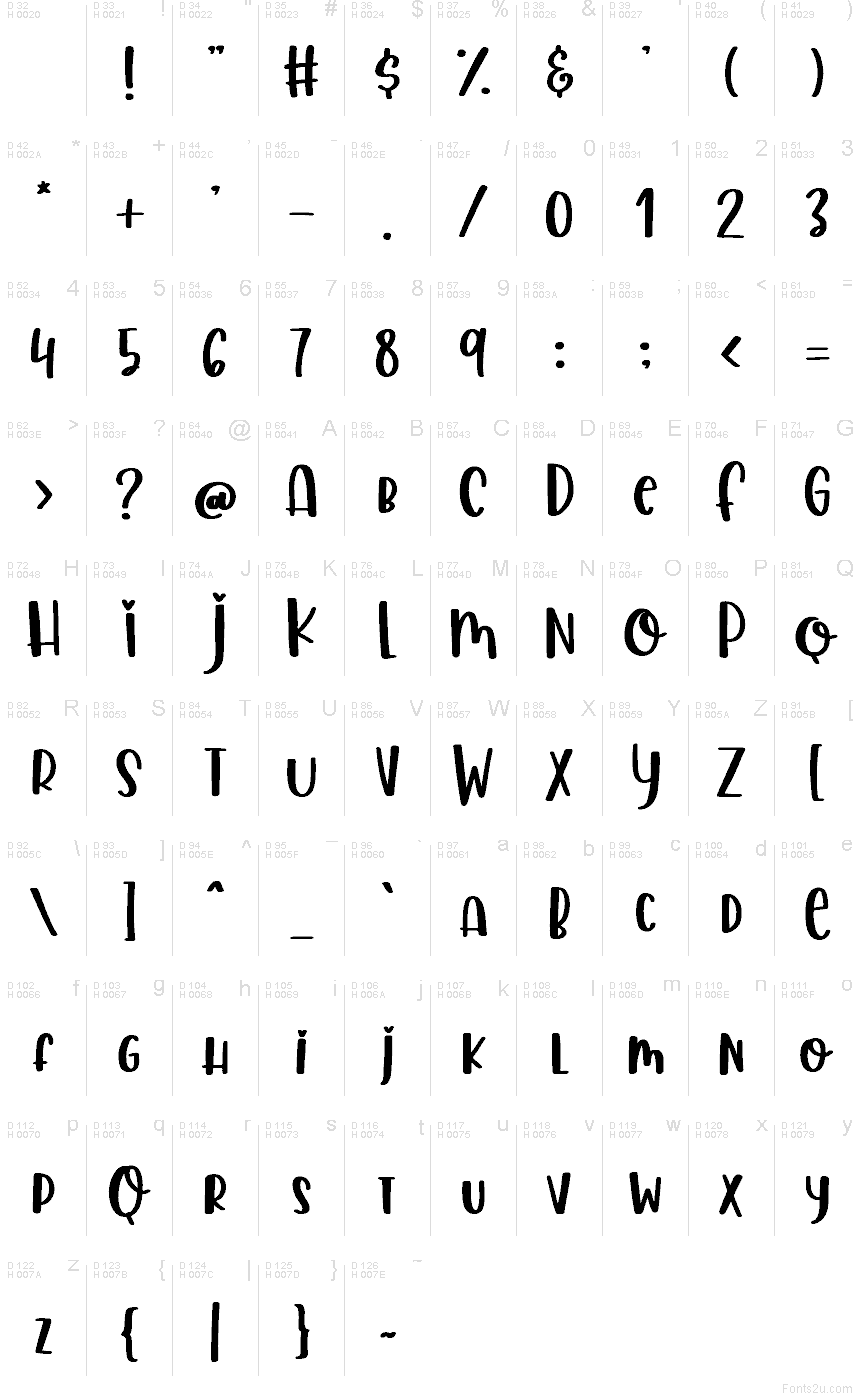
Liontin Heart
Liontin Heart font by DM Letter Studio - Dimas Prasetyo is a free Valentine holiday font with a bold, hand-drawn charm and playful heart details tucked into the letters. The strokes feel inky and casual, like they were painted with a chunky marker, giving every word a soft, affectionate energy rather than a stiff, formal look. Rounded shapes and lively rhythm make it feel warm, friendly, and instantly romantic.
Using Liontin Heart, you can bring a sweet, handmade feel to Valentine cards, wedding signage, gift tags, social media graphics, party invitations, and holiday packaging. This free font shines on anything that needs a cute, heartfelt voice without becoming overly ornate or fussy. Pair it with a clean, light sans serif for body text and let Liontin Heart take center stage in larger headings or short phrases.